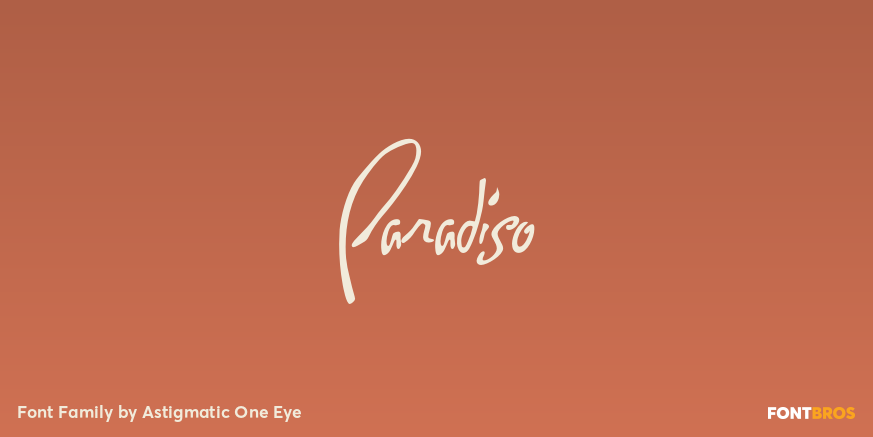
Inspired by logotype of the Paris Resort and Casino in Las Vegas comes the Paradiso typeface, complete with an unusual array of leaning and unusually large capitals versus a petite lowercase that have a loosely drawn feel. Definitely a typeface with capitals…